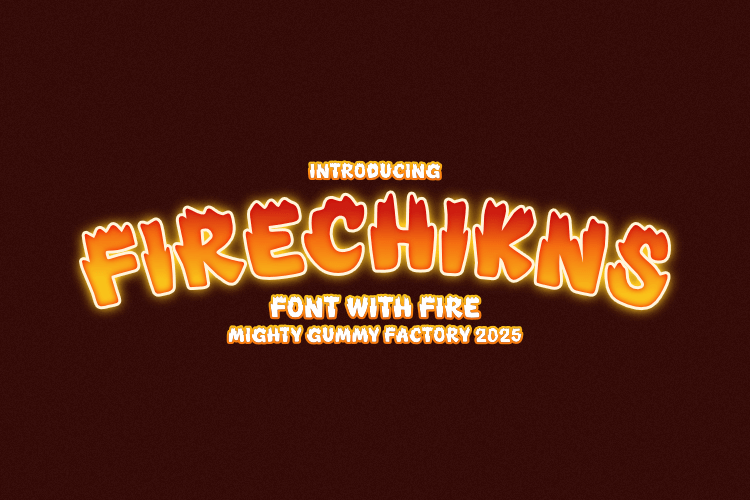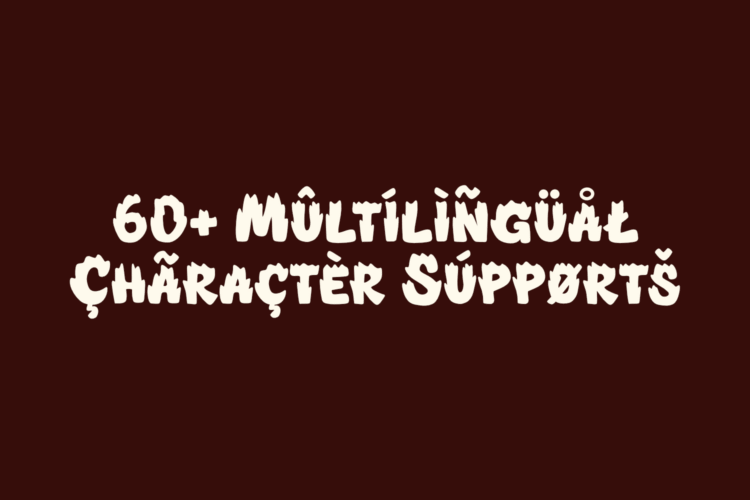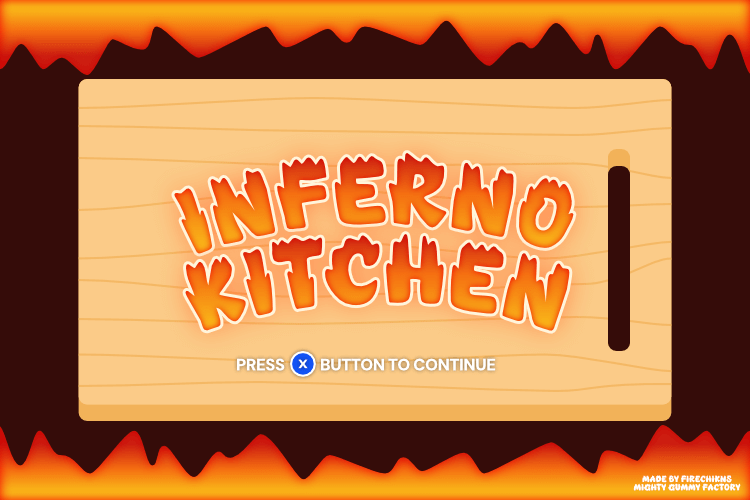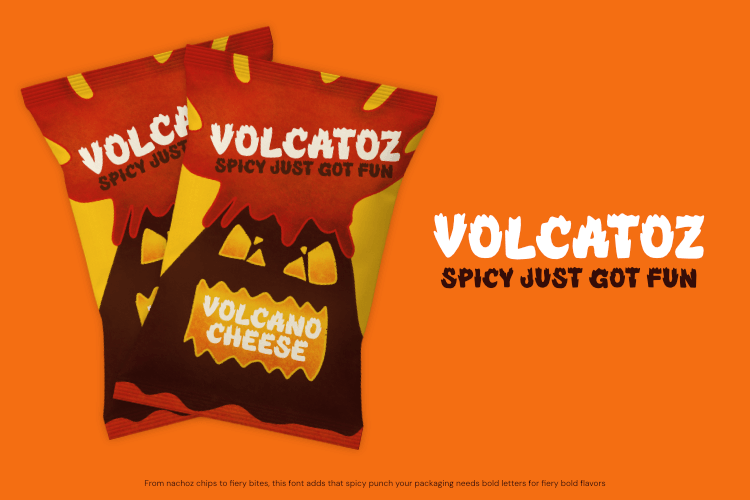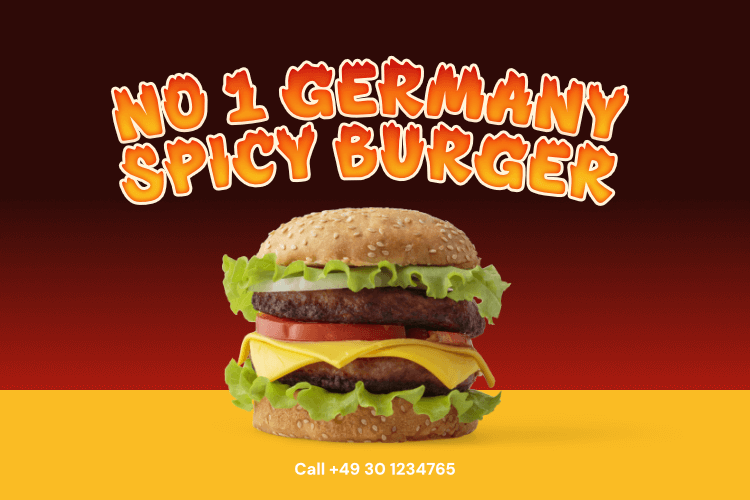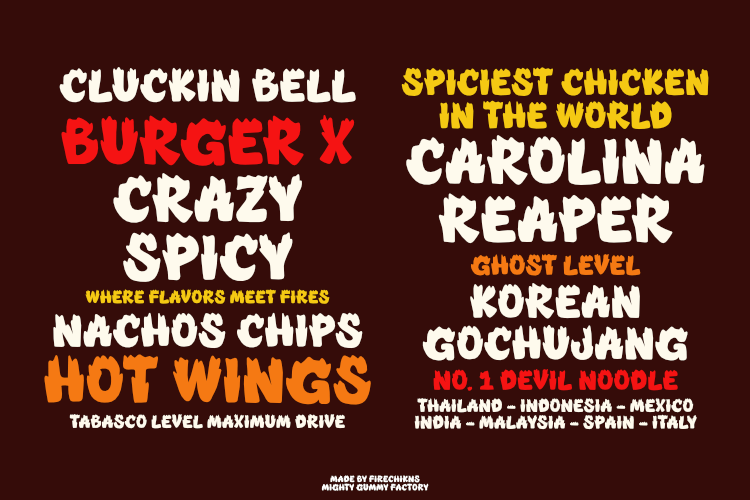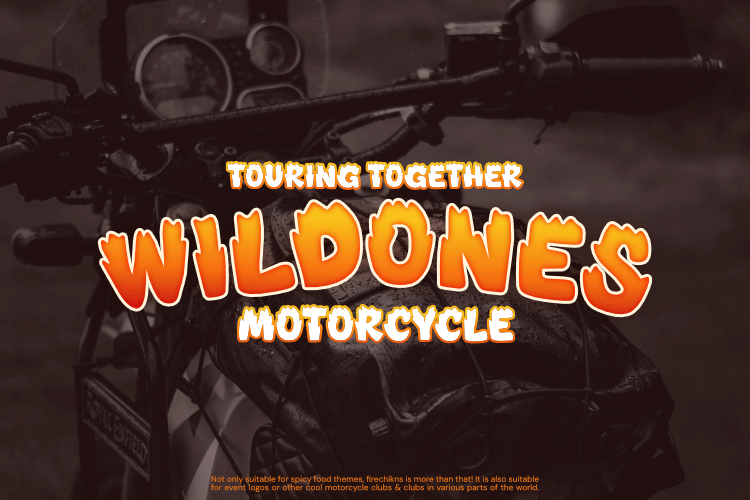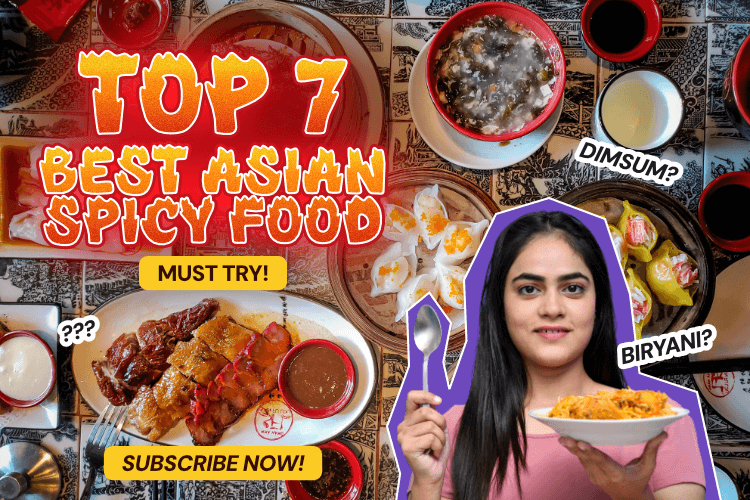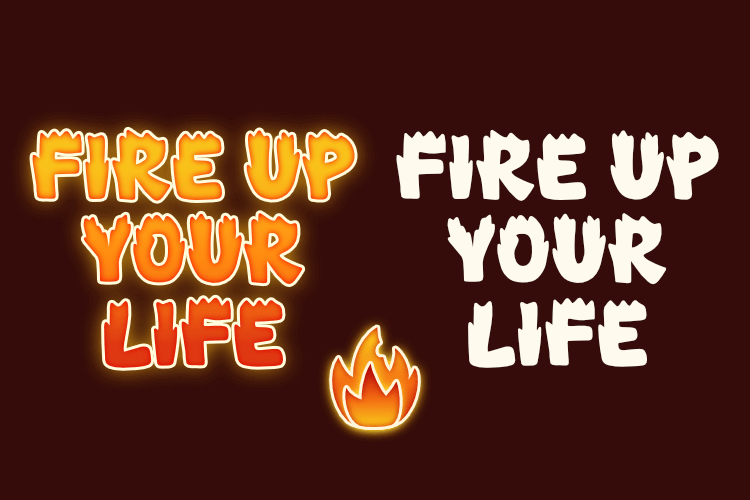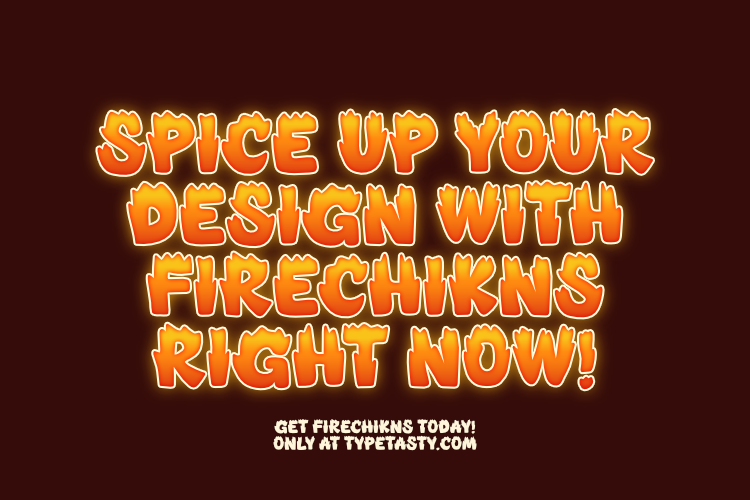
FIRECHIKNS is a bold and playful fire-themed display font with flame-topped letters, perfect for kids’ branding, spicy food logos, hot sauce packaging, comic covers, YouTube thumbnails, and fun merchandise. Designed with rounded, handcrafted shapes and a quirky personality, this font adds instant energy and warmth to any creative project.
💥 What Makes FIRECHIKNS Stand Out
🔥 Spicy & Playful Vibe
-
A fire-themed font full of personality, warmth, and cartoon charm
-
Designed to feel fun, energetic, and just a little bit wild
🔥 Perfect for Pop Culture & Kids’ Content
-
Ideal for YouTube thumbnails, food trucks, kids’ menus, fiery merch
-
Adds instant flair to Instagram posts, party invites, or playful branding
🔥 Fun, Handcrafted Letterforms
-
Rounded, soft edges with blazing fire tops on each letter
-
Hand-drawn feel with quirky proportions to keep it light and friendly
🔥 Hot Use Cases
-
Children’s book titles & covers
-
Spicy food branding & menu design
-
Gaming overlays, stickers & streams
-
Social media visuals & funny merchandise
-
Posters, comics, and playful packaging
Bring the heat to your design with FIRECHIKNS – a bold, blazing display font bursting with fiery flair! Whether you’re branding a hot sauce, crafting sizzling social posts, or designing for kids and comics, this font turns up the temperature with a perfect blend of fun, fire, and flavor.